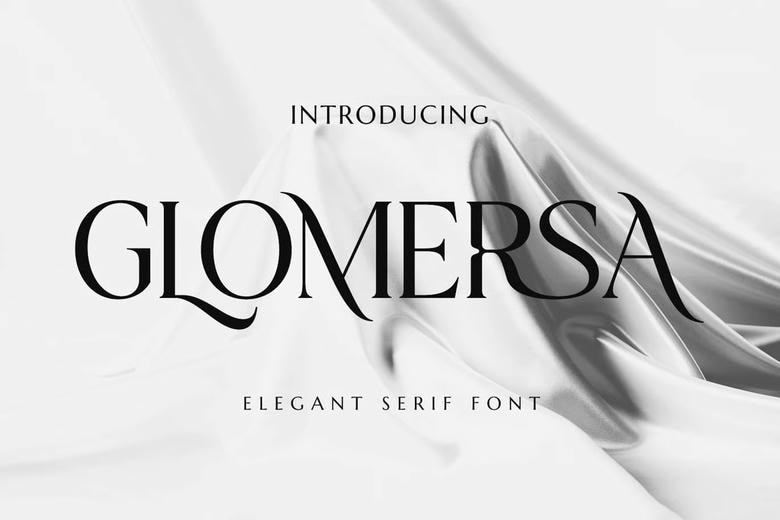
Glomersa Font
Glomersa Font is a modern serif typeface inspired by elegant, bold typography. Its refined letterforms and strong details make it a great choice for branding, editorial layouts, packaging, and display use.
Glomersa works well for fashion brands, product packaging, clothing labels, portfolio websites, posters, magazine headers, invitations, and other creative projects that need a modern serif style.
Glomersa Serif Font